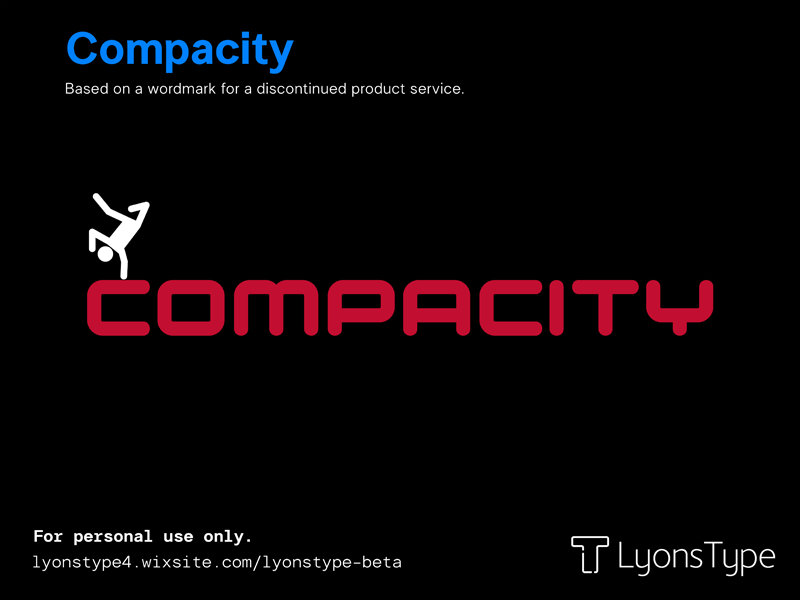
A font based on the Compaq wordmark. All LyonsType fonts are freely available to download at: https://lyonstype4.wixsite.com/lyonstype-beta For any inquiries, please contact me at lyonstype@pm.me Update 3/6/2024 Font renamed to Compacity. |